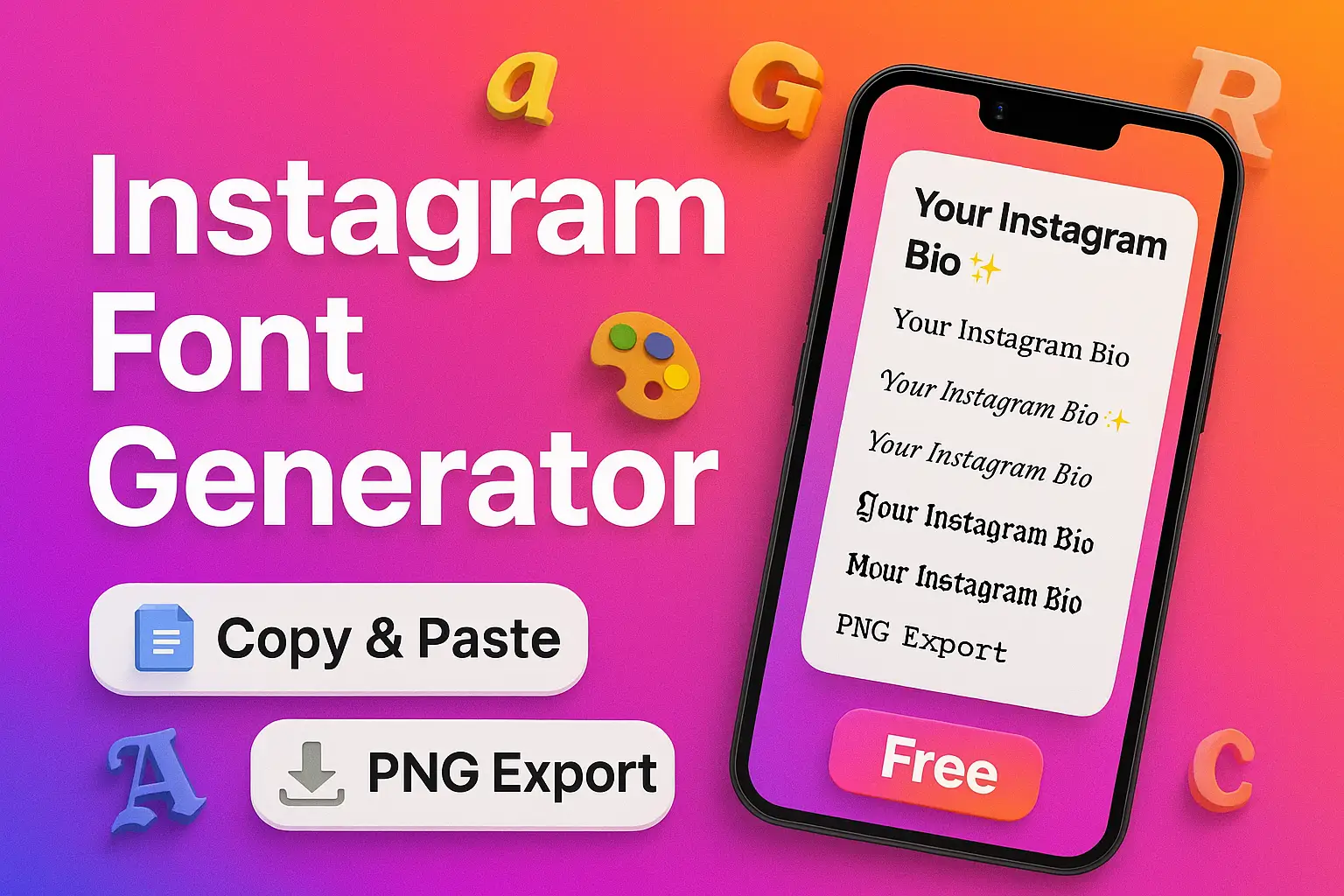
When I first started customizing my Instagram profile, I realized that the little details make a big difference. One of the most underrated tricks is using an Instagram font generator to create stylish text. By experimenting with unique fonts for Instagram bio and captions, I quickly saw how it grabbed attention and made my profile feel more personal.
In this article, I’ll share everything I’ve learned about Instagram bio fonts, cool IG fonts, and Instagram text fonts. You’ll discover how to use an IG font generator effectively, explore the best fonts for Instagram bio, and learn how to copy and paste fonts directly into your profile. Let’s dive into the world of text style creativity on Instagram.
Instagram Font Generator
Why Fonts Matter on Instagram
Typography is not just about design it’s about communication. On Instagram, where millions of profiles compete for attention, fonts can:
- Express personality: Your font style says a lot about your vibe.
- Increase engagement: Unique fonts draw the eye and make people stop scrolling.
- Enhance branding: Whether you’re an influencer or a business, fonts can support your brand identity.
Think of your Instagram bio as your digital business card. A simple tweak like using Instagram bio fonts can make a world of difference.
What Is an Instagram Font Generator?
An Instagram font generator is an online tool that converts plain text into different font styles. These tools work by transforming standard Unicode characters into unique variations, which can be copied and pasted into Instagram.
Some popular styles include:
- Bold and italic fonts
- Script or cursive fonts
- Fancy decorative styles
- Minimalist monospace fonts
With an IG font generator, I don’t need graphic design skills or special software. All it takes is typing text, choosing a style, and pasting it into my Instagram bio or captions.
Benefits of Using Instagram Fonts
Here are some reasons why I rely on different fonts for Instagram:
- Stand Out from the Crowd
- A creative font immediately makes your profile memorable.
- Showcase Your Personality
- Playful fonts, elegant scripts, or bold styles let followers know who you are.
- Boost Engagement
- Posts with creative text styles often receive more likes and comments.
- Enhance Brand Identity
- Businesses can use consistent fonts across Instagram to strengthen branding.
How to Use Instagram Font Generators
Using an IG font generator is simple. Here’s my step-by-step process:
- Choose a reliable Instagram font generator tool.
- Type your text (bio, caption, or username).
- Browse through the generated styles until you find one you like.
- Copy the styled text.
- Paste it into Instagram (bio, captions, or comments).
💡 Pro Tip: Test fonts before using them to make sure they are readable on all devices.
Best Use Cases for Instagram Fonts
I’ve experimented with fonts in many ways. Here’s where they work best:
- Instagram Bio: The first impression people get about you.
- Captions: Highlight important words or quotes.
- Stories: Add flair to storytelling.
- Comments: Grab attention in crowded threads.
- Highlights: Use stylish titles for consistency.
Examples of Fonts for Instagram Bio
Below is a simple table comparing popular styles you can use:
| Font Style | Example Text | Best Use Case |
|---|---|---|
| Bold | Hello World | Making strong statements |
| Italic | Hello World | Adding emphasis |
| Script/Cursive | 𝒽𝑒𝓁𝓁𝑜 𝓌𝑜𝓇𝓁𝒹 | Elegant bios or quotes |
| Monospace | 𝚑𝚎𝚕𝚕𝚘 𝚠𝚘𝚛𝚕𝚍 | Minimalist bio |
| Fancy Decorative | 𝓗𝓮𝓵𝓵𝓸 𝓦𝓸𝓻𝓵𝓭 | Creative branding |
Cool IG Fonts That Work Well
Some of my favorite cool IG fonts include:
- Gothic fonts for a mysterious vibe
- Handwritten cursive for a casual, friendly tone
- Modern minimalist styles for clean, professional looks
- Decorative styles for fun, artistic bios
These fonts let me adjust my Instagram aesthetic without redesigning my entire profile.
Instagram Fonts Copy and Paste
One of the easiest tricks is Instagram fonts copy and paste. I simply:
- Type text into an Instagram text font generator.
- Choose my favorite style.
- Copy the generated font.
- Paste it directly into Instagram.
No coding, no app installation just copy and paste.
The Psychology Behind Instagram Fonts
Different font styles evoke different emotions. For example:
- Bold fonts = Confidence and authority
- Cursive fonts = Elegance and sophistication
- Monospace fonts = Simplicity and clarity
- Fancy fonts = Playfulness and creativity
By choosing the right Instagram bio fonts, I can influence how followers perceive me.
Potential Downsides of Using Instagram Fonts
While I love experimenting with fonts for Instagram, there are some downsides:
- Readability issues: Some fonts may be hard to read.
- Accessibility problems: Not all fonts are screen-reader friendly.
- Overuse: Too many styles can look unprofessional.
- Platform limitations: Some fonts may not display properly on older devices.
That’s why I always use fonts strategically.
FAQs About Instagram Font Generator
Q1: Are Instagram font generators safe?
Yes, as long as you use trusted tools. They don’t require login or personal data.
Q2: Can I use fonts for my Instagram username?
Yes, but make sure they are readable and allowed by Instagram’s guidelines.
Q3: Do fonts affect SEO on Instagram?
No, Instagram doesn’t rank based on fonts. But creative fonts can boost engagement, indirectly improving visibility.
Q4: What’s the best font for Instagram bio?
It depends on your personality. For a professional look, try minimalist fonts. For creativity, experiment with decorative fonts.
Q5: Can I change fonts in Instagram directly?
No, Instagram doesn’t have built-in font options. You must use an Instagram text font generator.
Tips for Choosing the Right Fonts for Instagram
When I select fonts style Instagram, I keep these tips in mind:
- Stick to two or three styles for consistency.
- Match the font with your brand voice.
- Prioritize readability over decoration.
- Test the font on multiple devices before finalizing.
Conclusion
Using an Instagram font generator has transformed how I present myself online. From stylish Instagram bio fonts to creative cool IG fonts in captions, the right typography helps me stand out, engage my audience, and express my personality.
If you haven’t tried it yet, experiment with different fonts for Instagram today. You’ll be surprised how much of a difference a simple text style can make.
Final Words
Fonts are not just letters—they’re a powerful form of self-expression. By mastering Instagram text fonts and learning how to copy and paste them seamlessly, I’ve been able to turn my Instagram profile into a more personal, creative space.